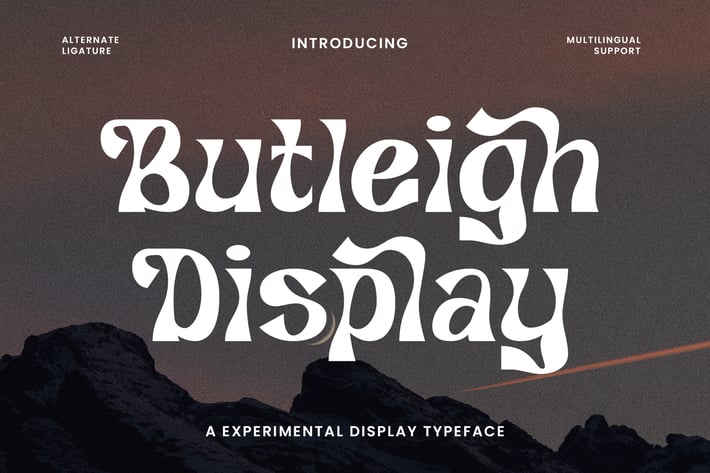
Butleigh - Experimental Font
Butleigh - Experimental Font contains a lowercase, uppercase, symbol, and also supports multi-language. There’s a lot of ligature in this font. Butleigh - Experimental Font also comes with ligatures, stylistic alternates, and many more.
this font is suitable for fashion, branding, catalog, and other designs that you want.